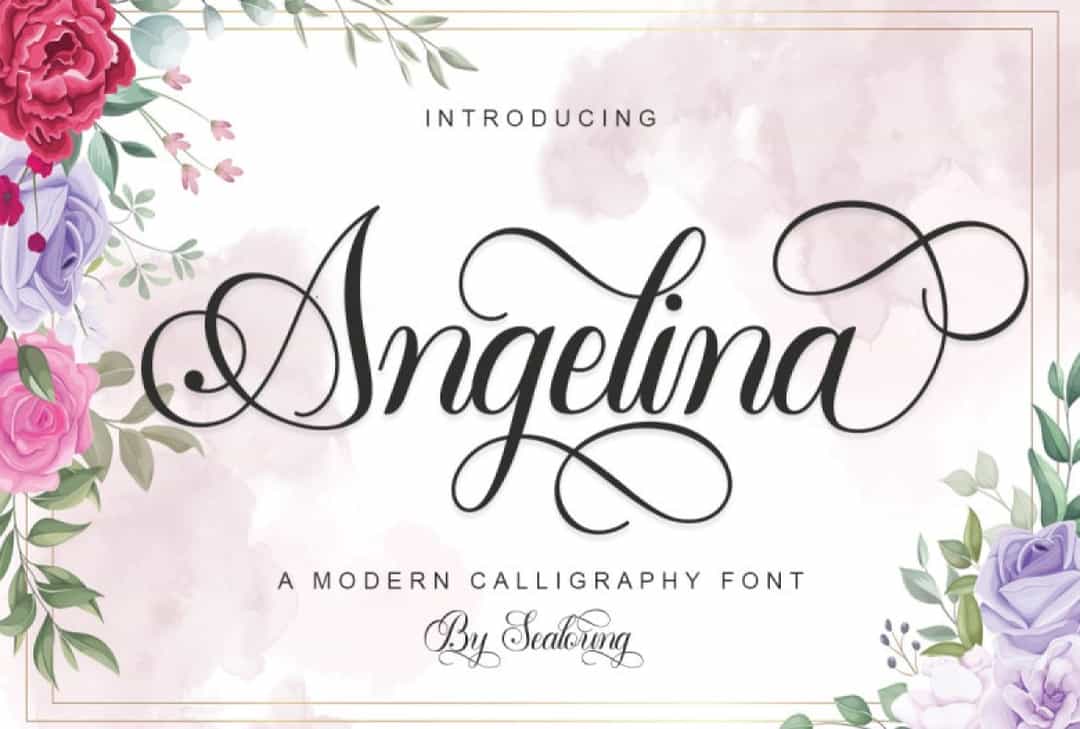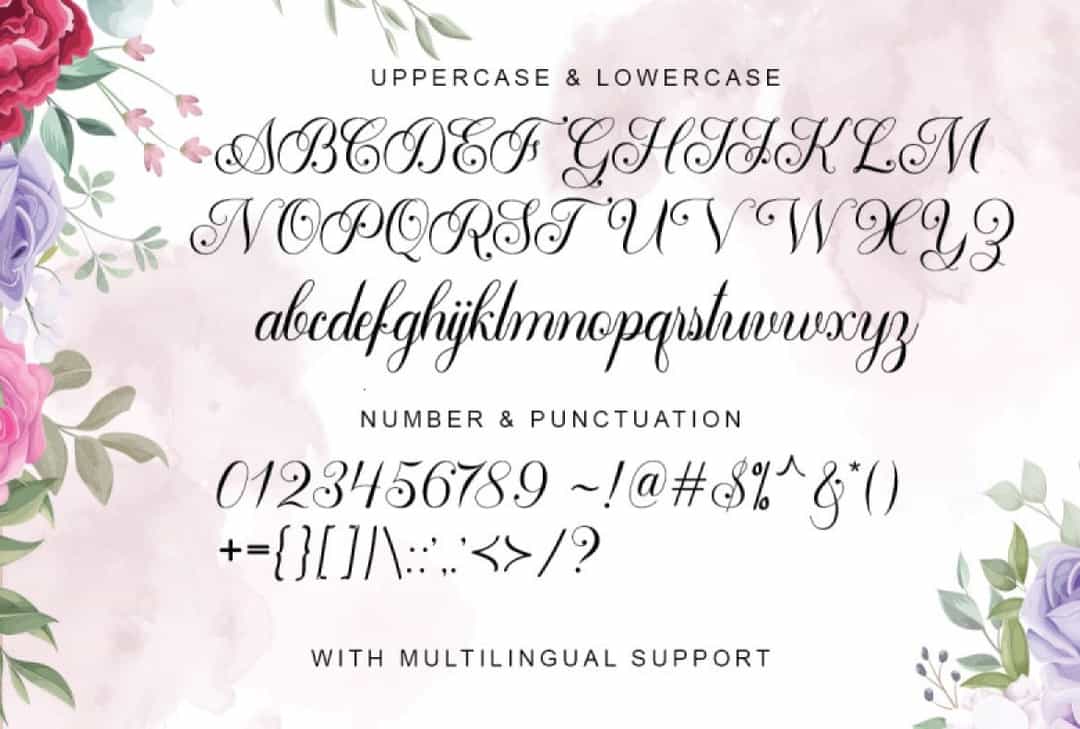
Angelina is an elegant, connected, script font with a character that will catch the eye for projects that are dear to you. PUA encoded meaning you can easily access all of its glyphs and swashes within a snap of a finger!